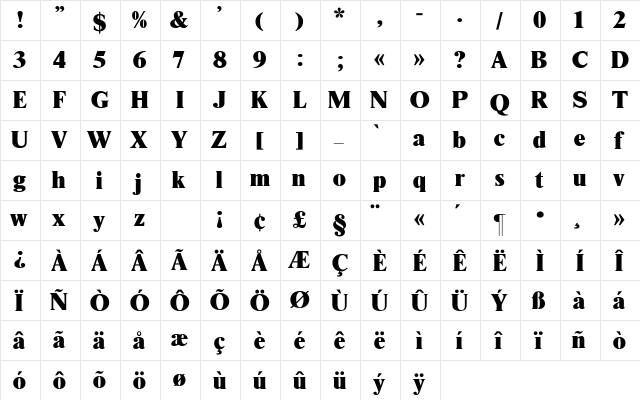
Times-Black Regular
Design Context for Times-Black Typeface
Times-Black is a composed and adaptable typeface that performs quietly and consistently across a wide range of design contexts.